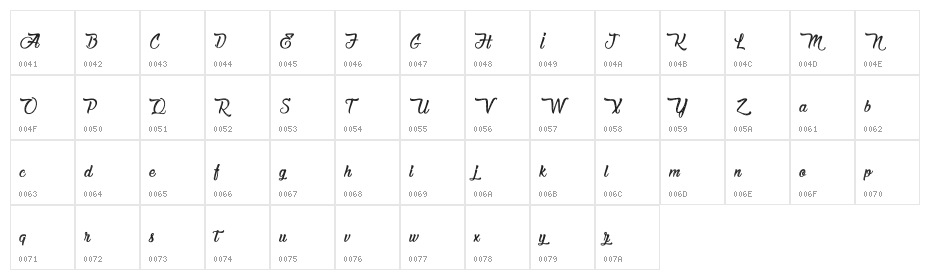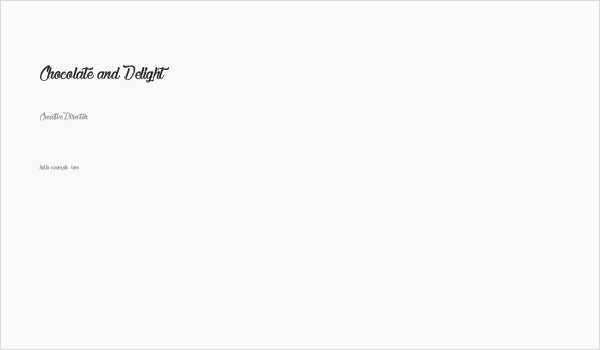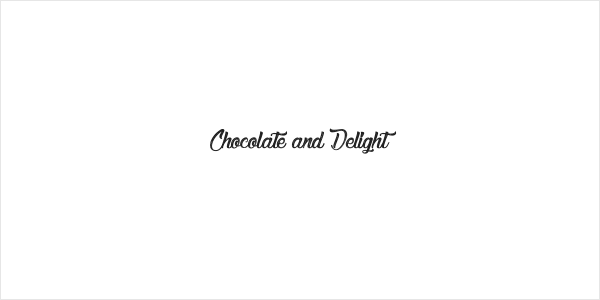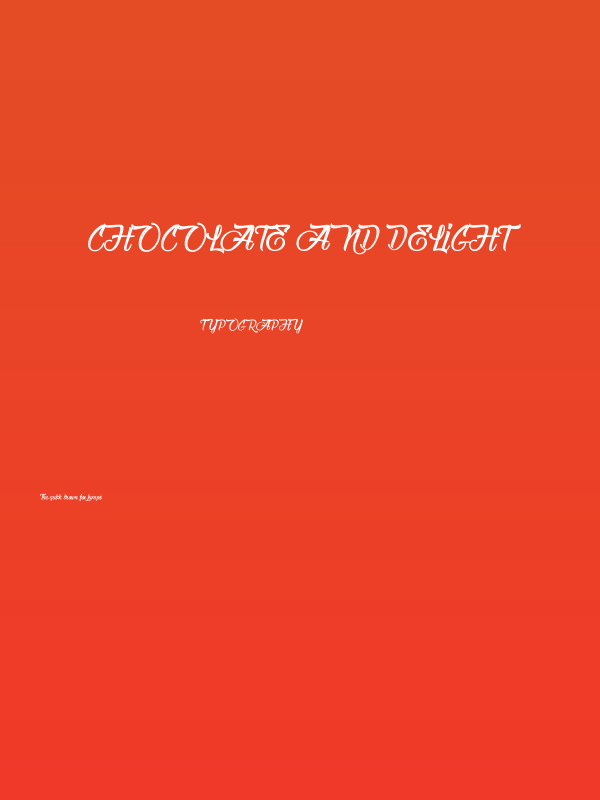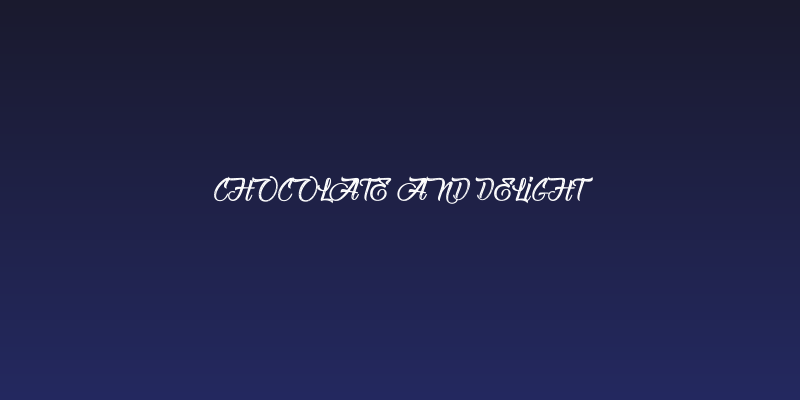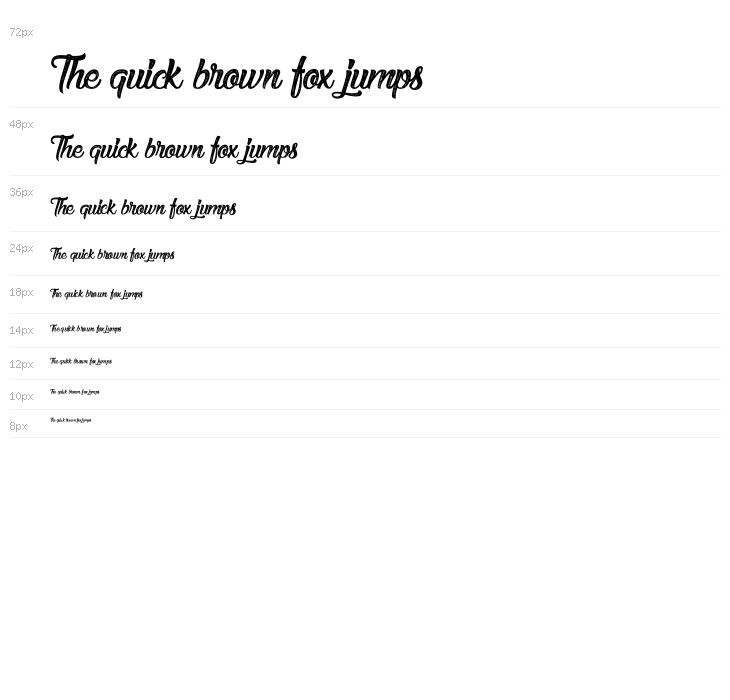
Chocolate and Delight Font
Chocolate and Delight Description
This font exudes a playful and elegant charm, characterized by its flowing script style. The uppercase letters are bold and ornate, with intricate loops and swirls that add a touch of sophistication. The lowercase letters maintain a consistent fluidity, with smooth curves and a slight slant that enhances readability. The overall design is reminiscent of classic calligraphy, yet it retains a modern flair. The font's unique personality is further emphasized by its decorative elements, making it suitable for creative and artistic projects. Its versatility allows it to be used in various contexts, from formal invitations to branding materials.
| Proposed Projects | Ideal for wedding invitations, greeting cards, branding, and artistic projects. |